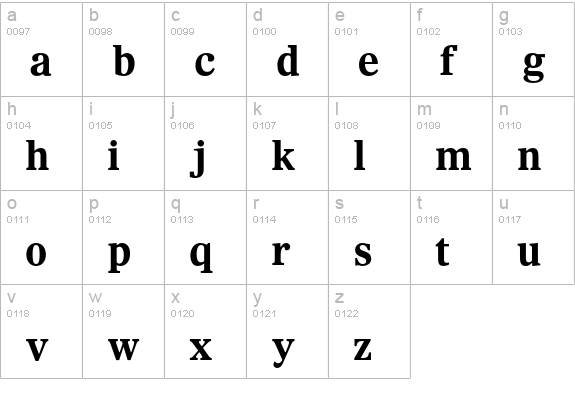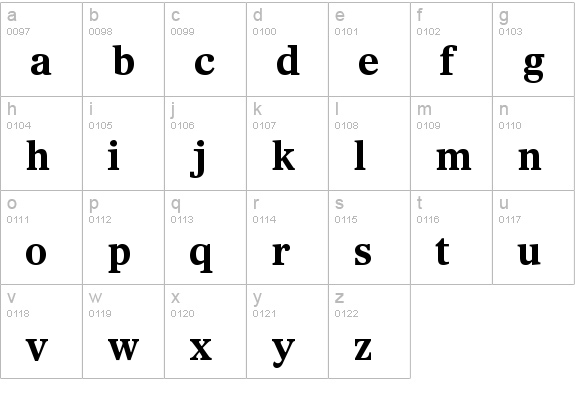
Olympian Bold is a strong, high-contrast variant in the Olympian typeface family \xE2\x80\x94 well suited to headlines, attention-grabbing titles, and strong calls-to-action.
Olympian Bold font exudes strength and elegance with its bold, impactful letterforms. This versatile typeface is perfect for creating eye-catching headlines, logos, and branding materials that demand attention. The bold strokes and clean lines of Olympian Bold make it a standout choice for any design project where a powerful and authoritative look is desired. The best part? Olympian Bold is available for free download at FontsMarket.com, allowing you to enhance your designs with this stunning font without having to spend a dime. Whether you're working on a professional project or a personal creative endeavor, Olympian Bold will elevate your typography game with its timeless appeal and commanding presence. Download Olympian Bold today and make a bold statement with your designs.